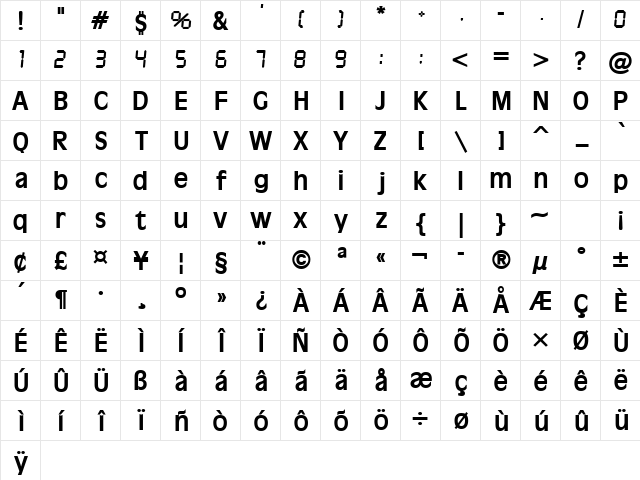
Battle Beast Normal Free Font
Battle Beast Normal
Design Context for Battle Beast
Battle Beast is a composed and adaptable typeface that performs quietly and consistently across a wide range of design contexts.